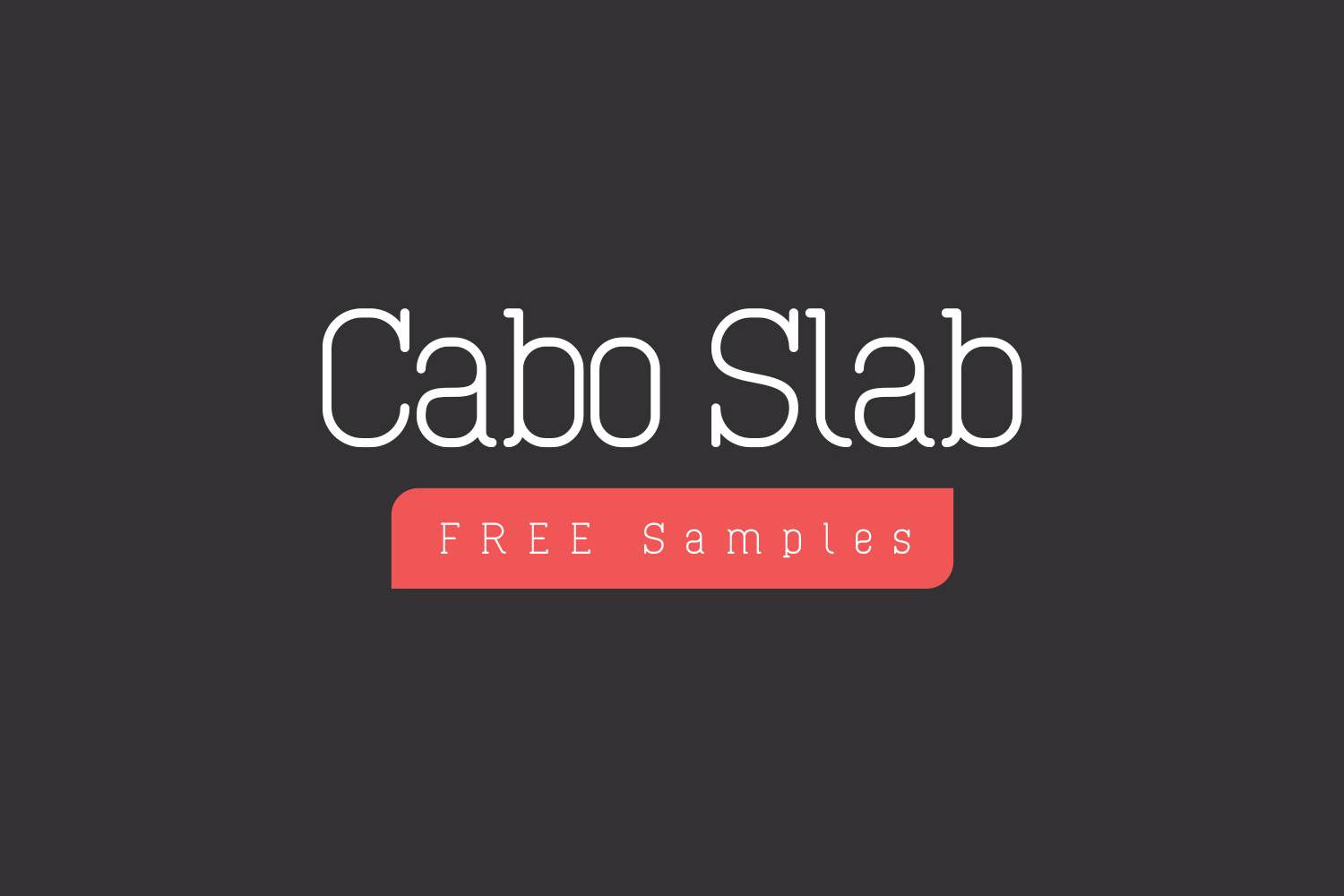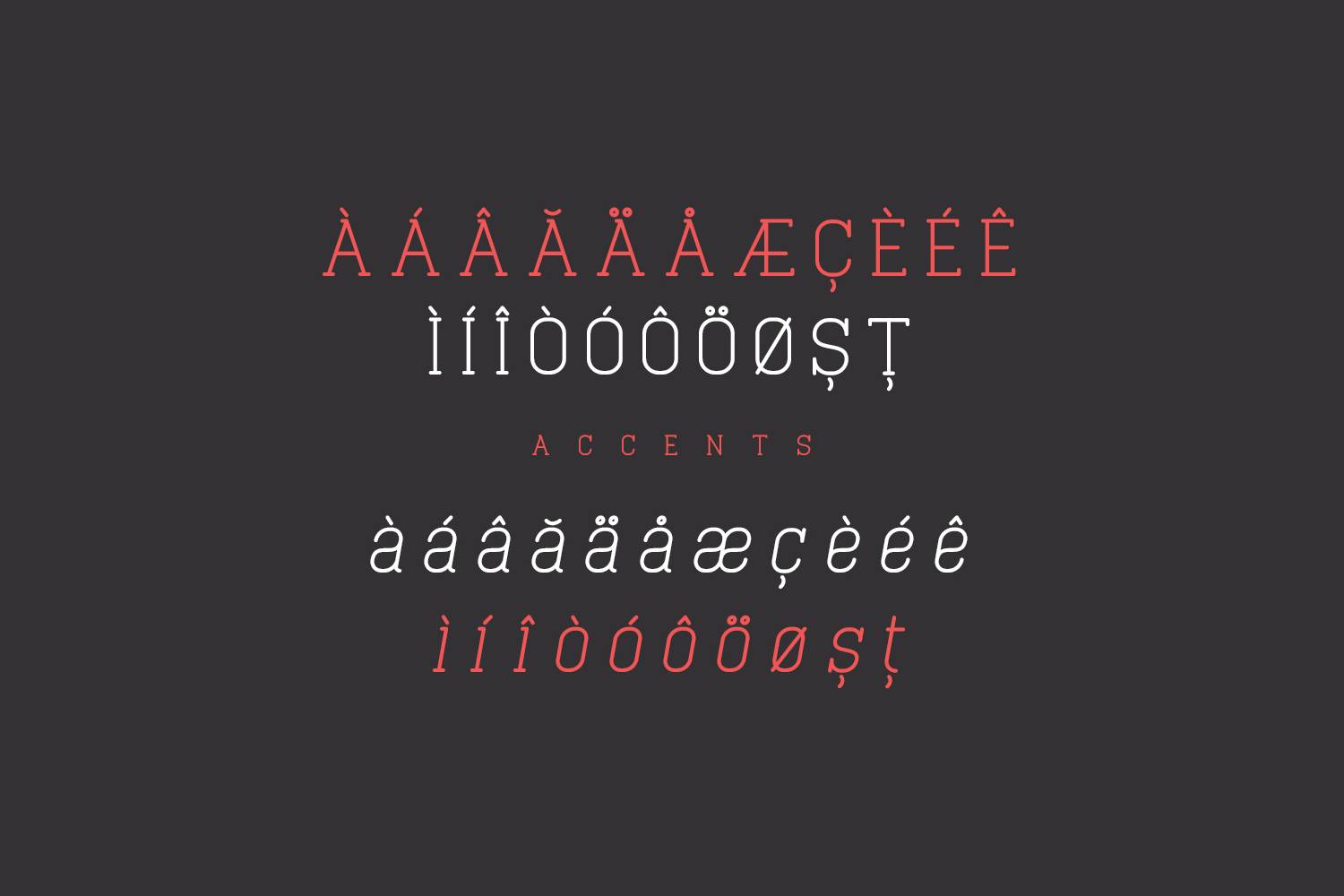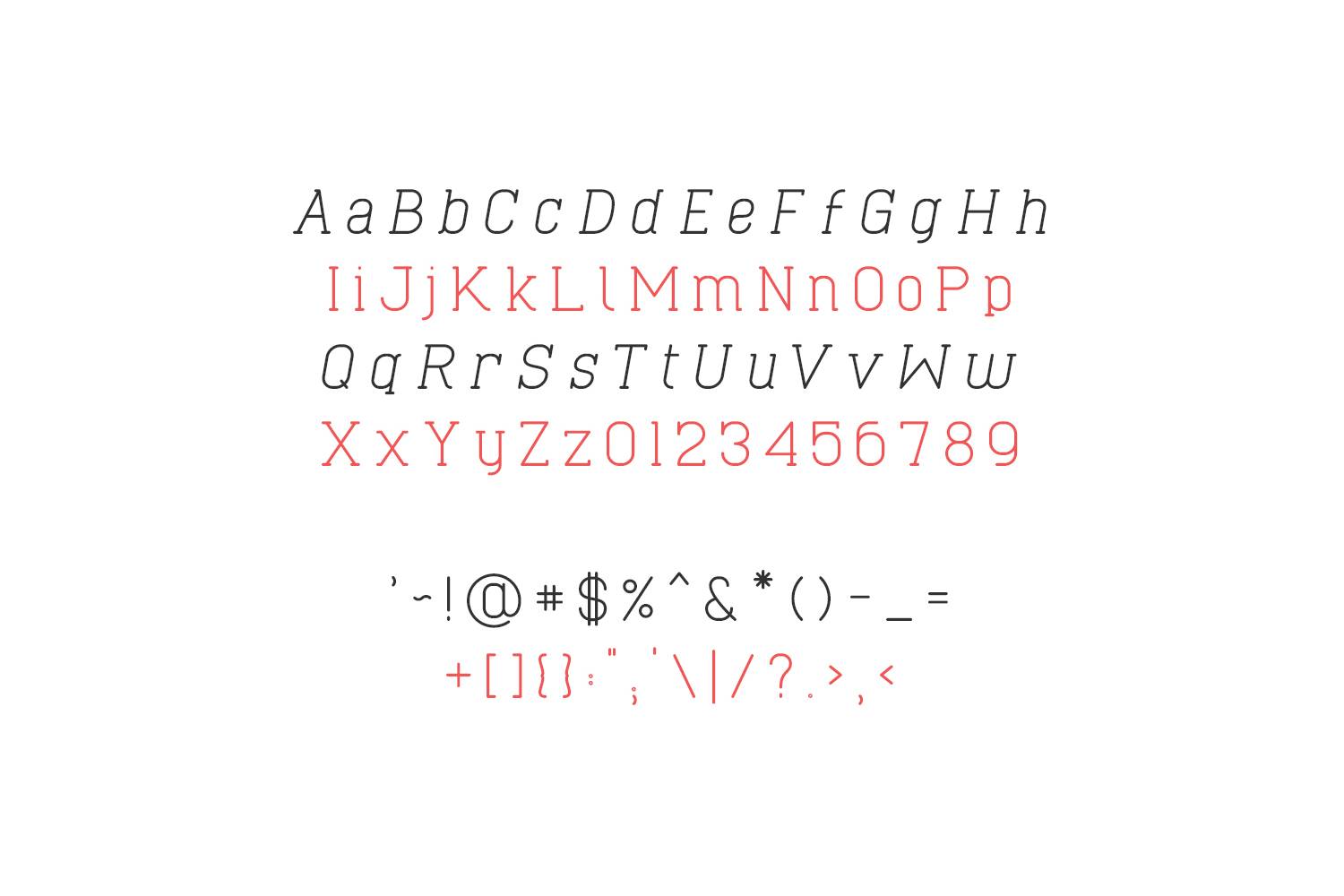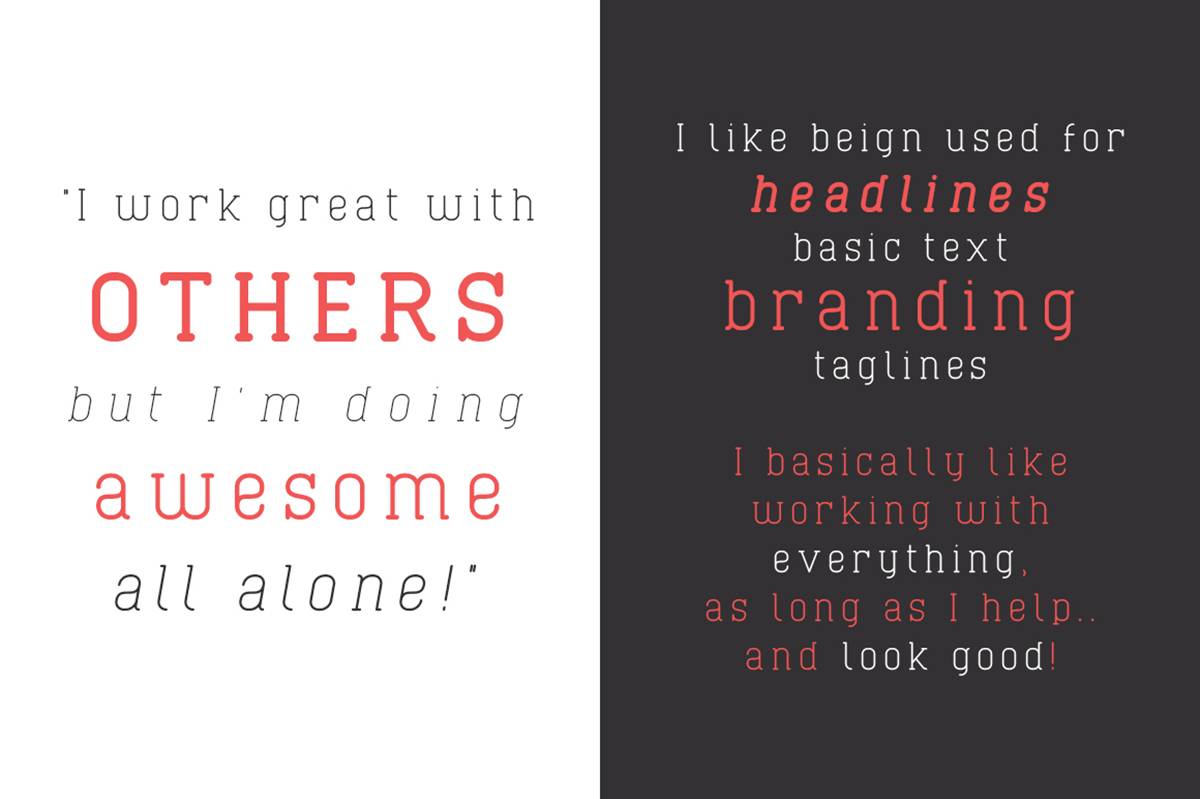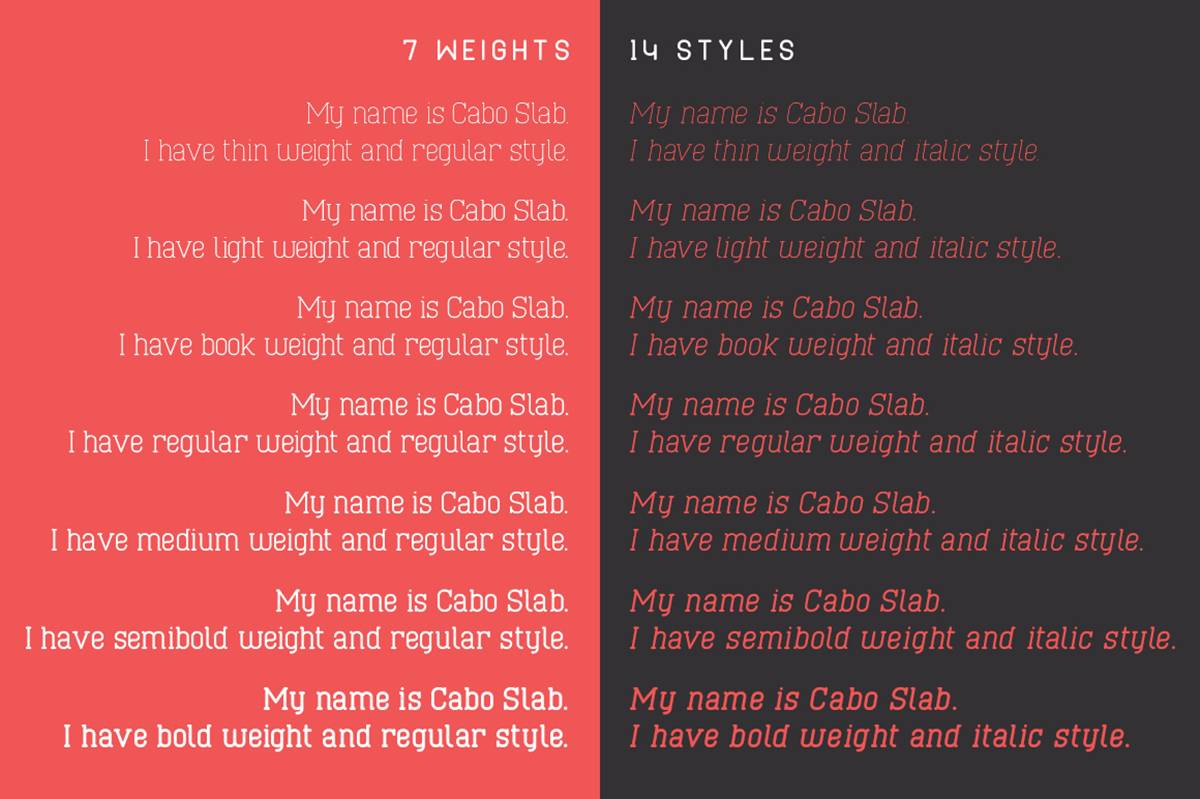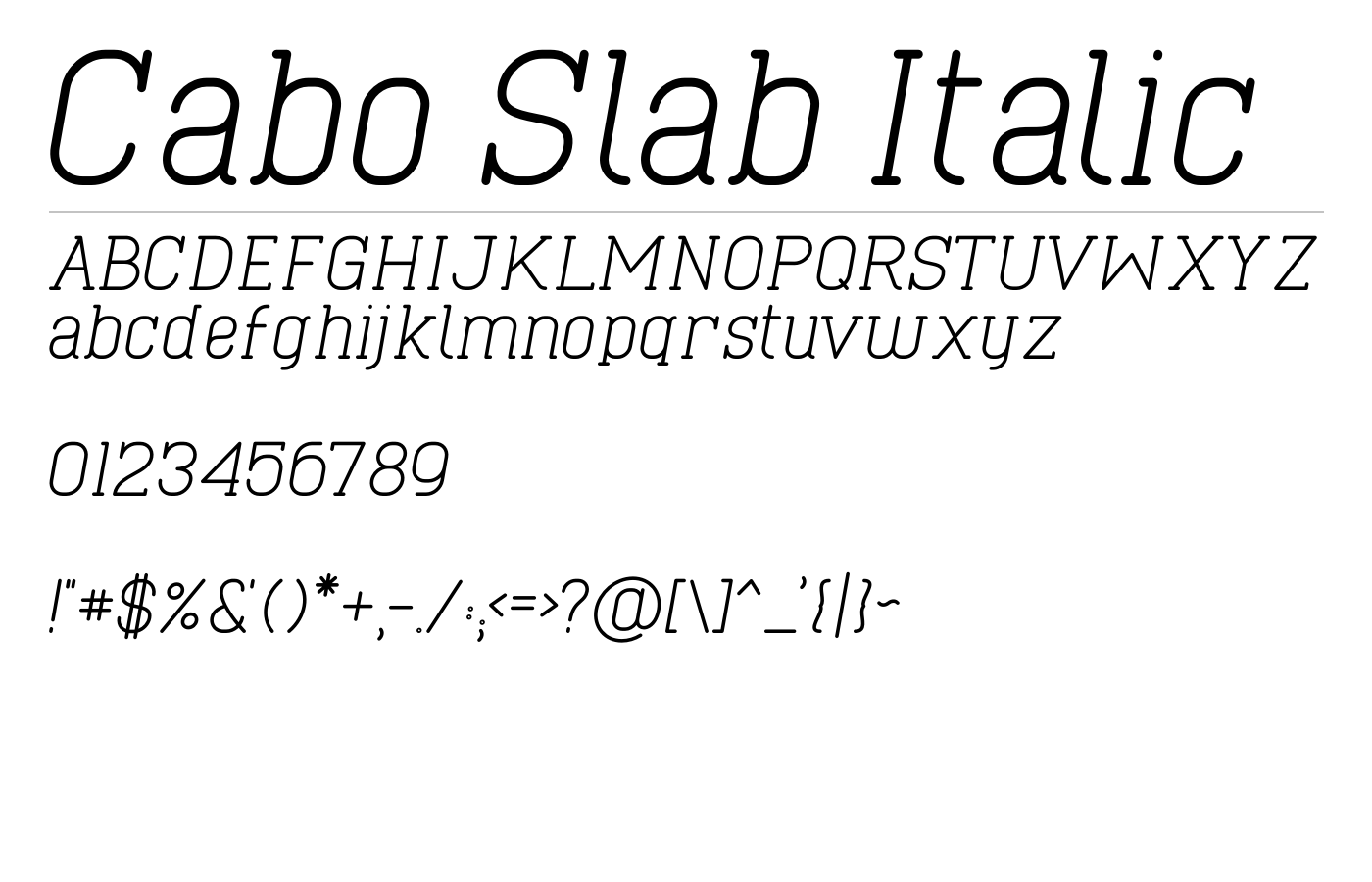
Cabo Slab Italic is a sleek, modern slab serif font featuring a clean, slightly condensed structure with a gentle slant that adds an elegant sense of motion. Its thin, consistent strokes and distinctive letterforms create a refined yet approachable personality, making it ideal for stylish branding, editorial headlines, and sophisticated digital content. The font balances classic slab serif strength with a fresh, contemporary italic twist, perfect for projects that want to convey professionalism with a subtle flair.
Cabo Slab Font
About Cabo Slab Font
| Font family | Cabo Slab Font |
| Category | Slab-serif |
| Release date | 2017-02-05 |
| Designer | Bogdan Casota |